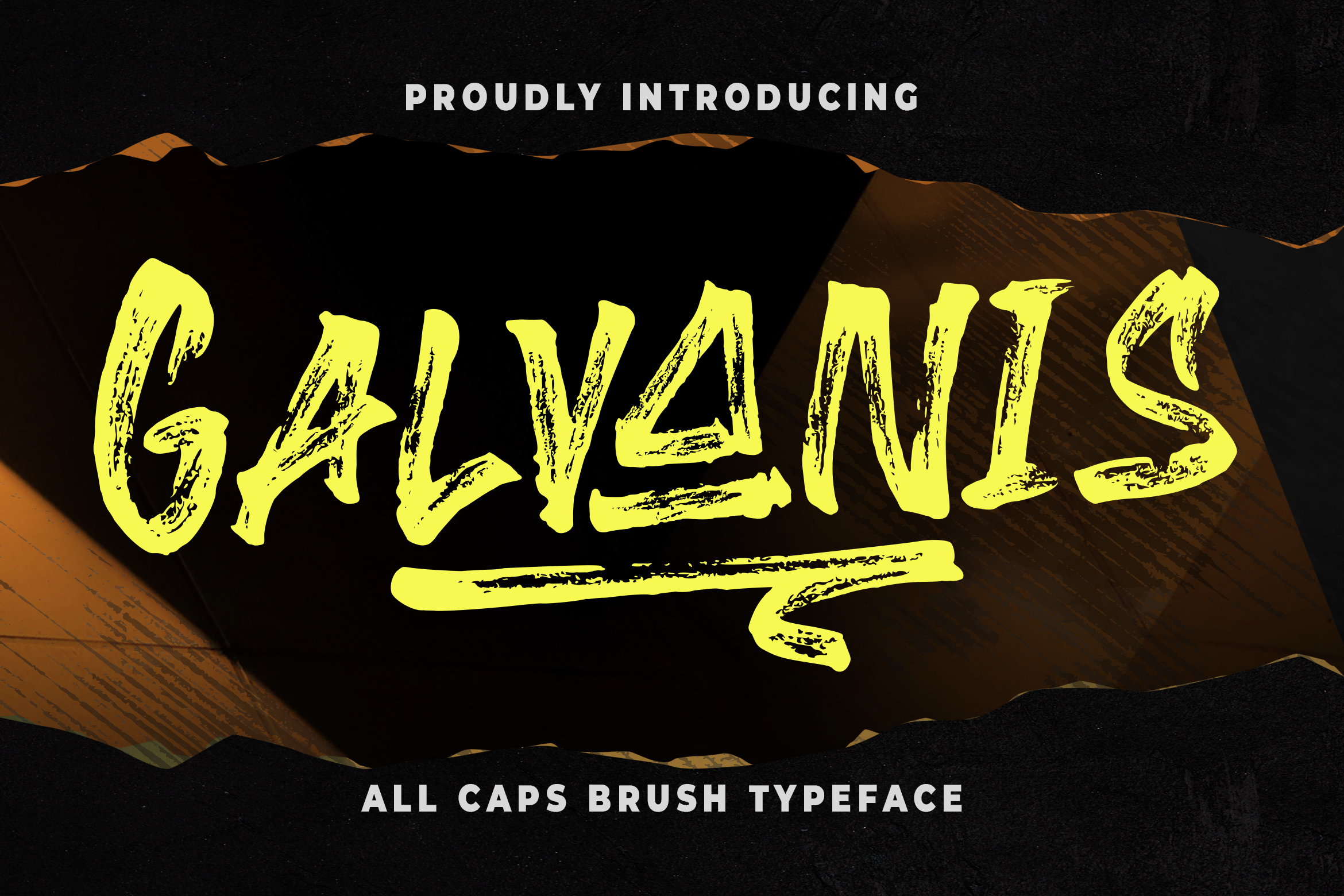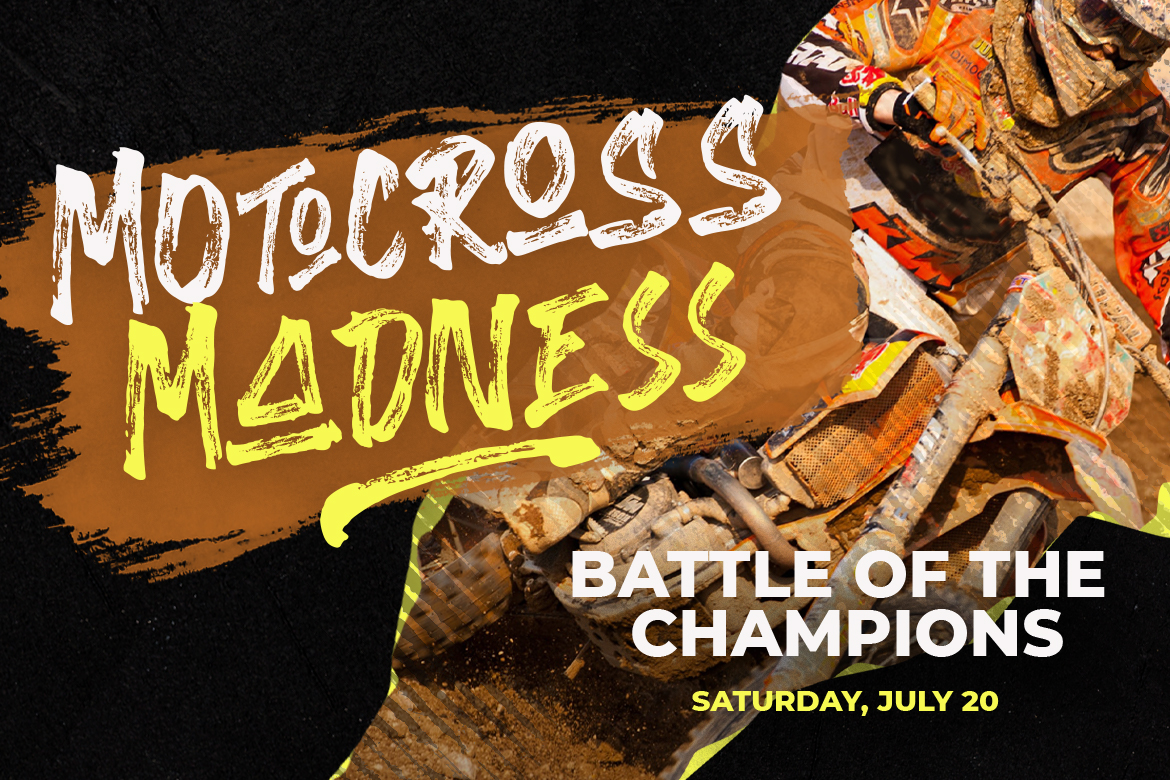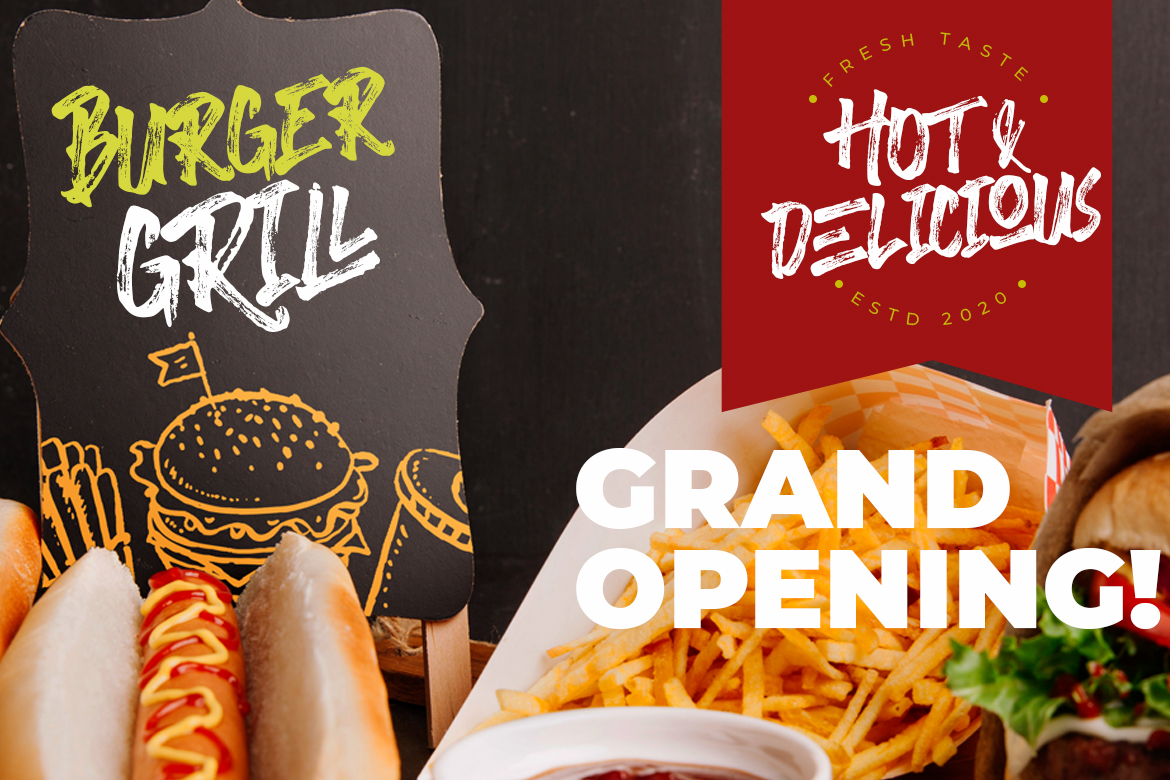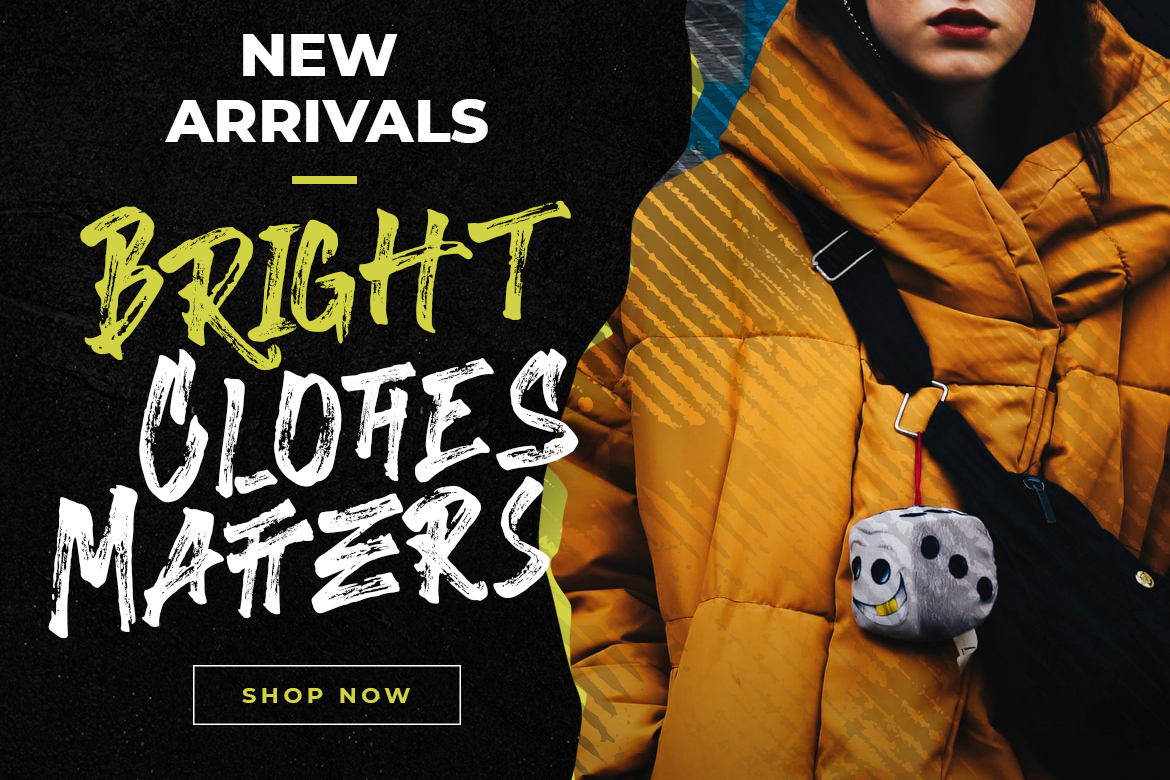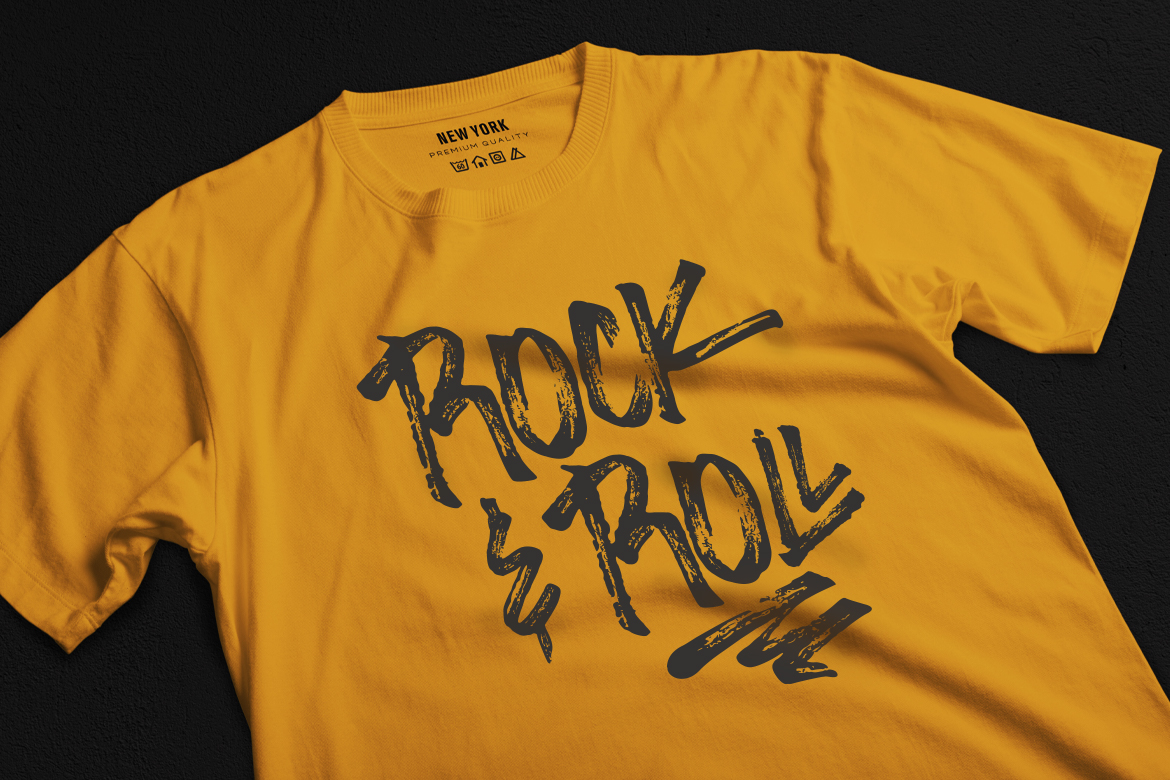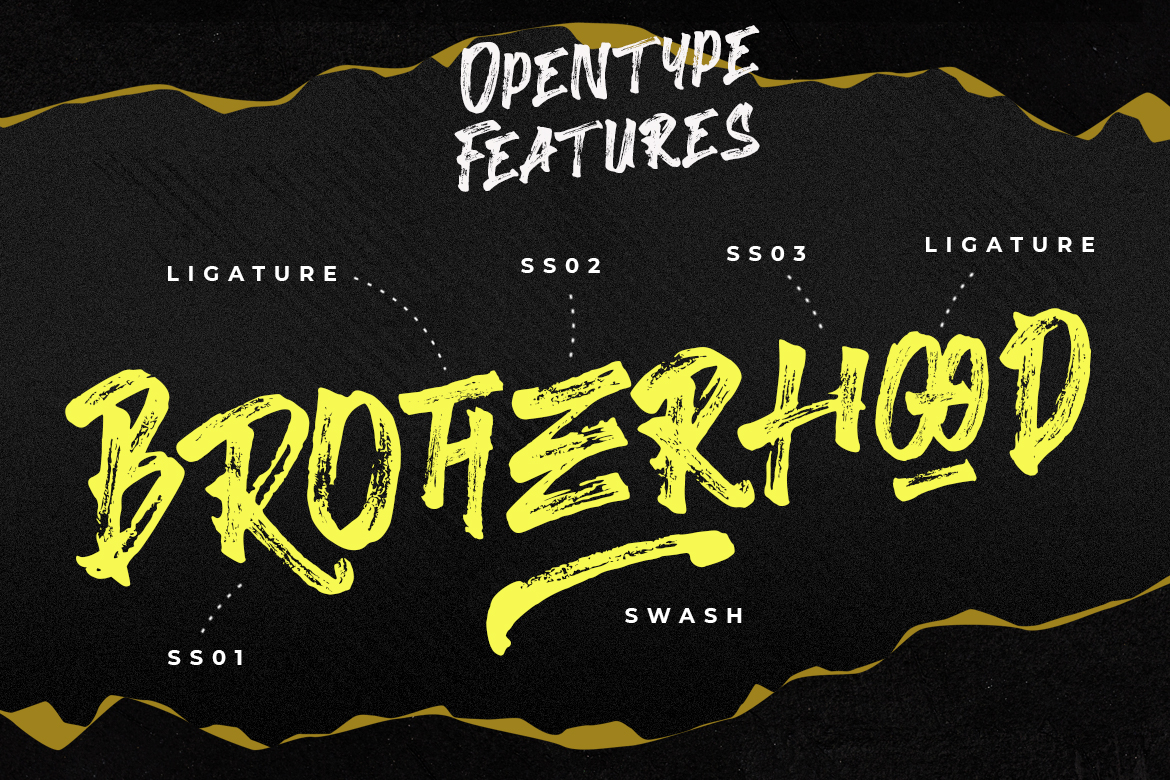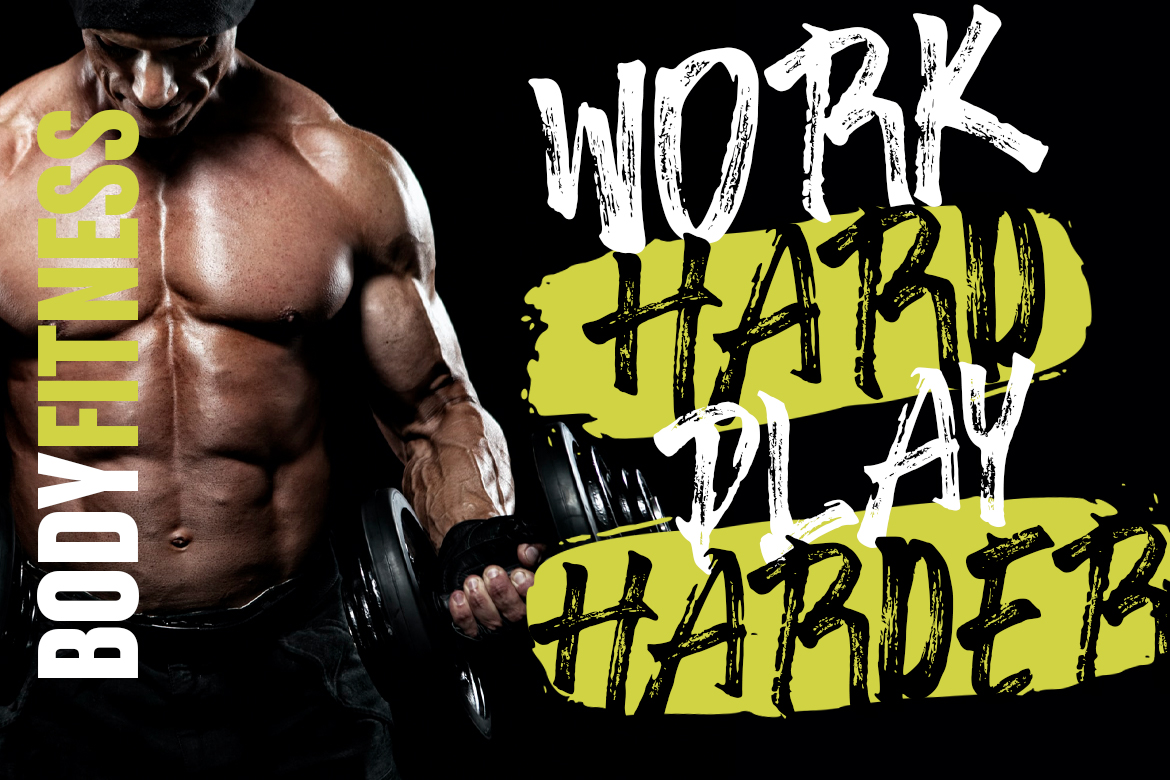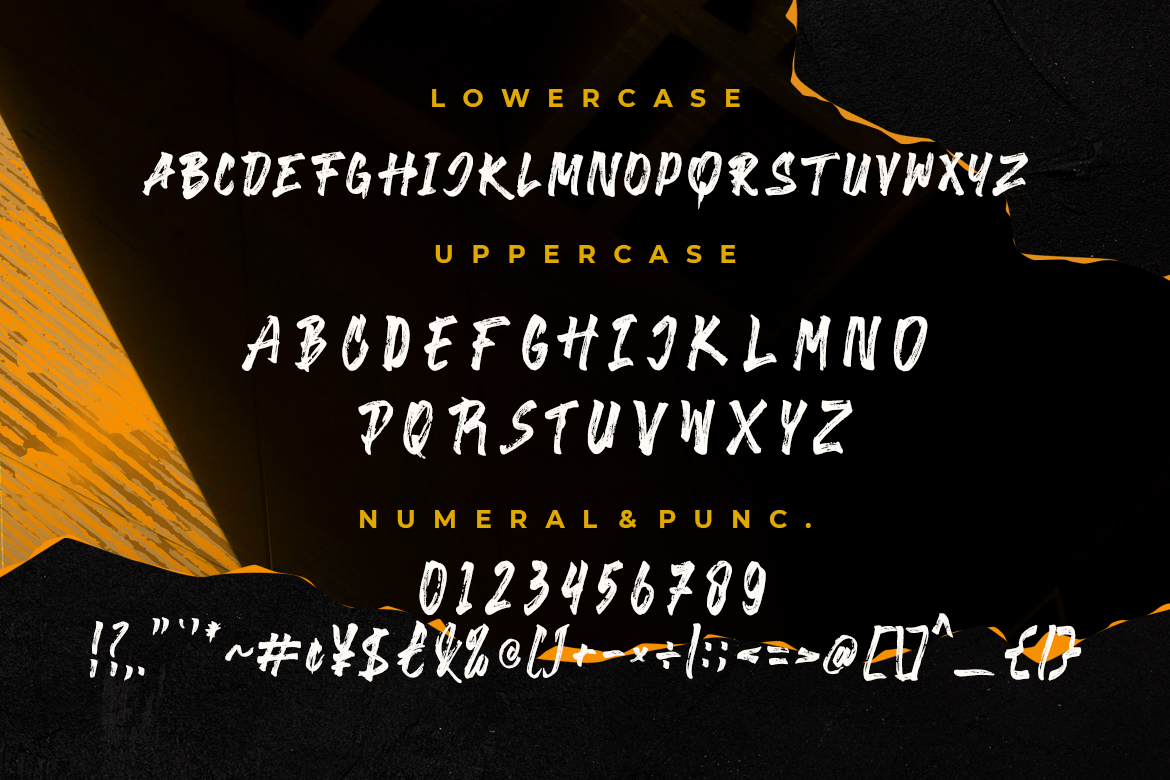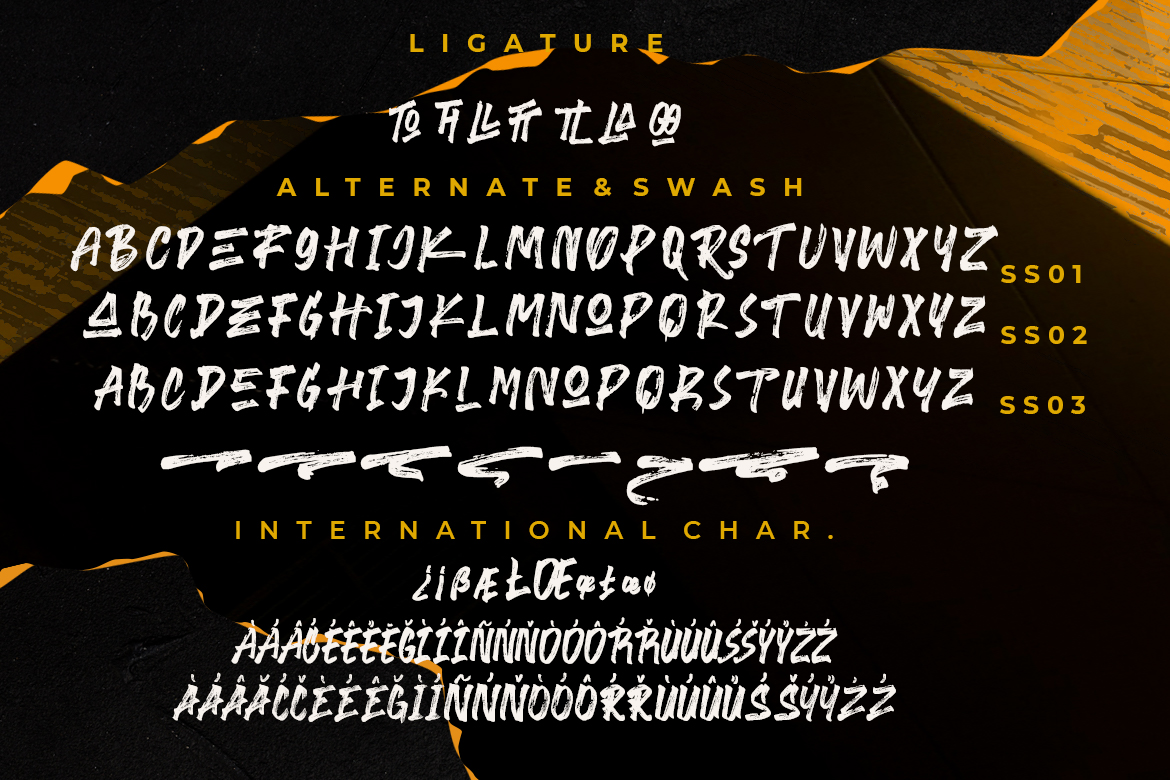
Introducing Galvanis – A brush font with all caps textures bold. This font will looks awesome and amazing in many way to your latest project. The font is perfect for movie title, logo, blogging, brand identity, book title, social media, branding, wedding invites, cards or simply use it in your next design project and suitable to use for many occasion.
Galvanis Brush